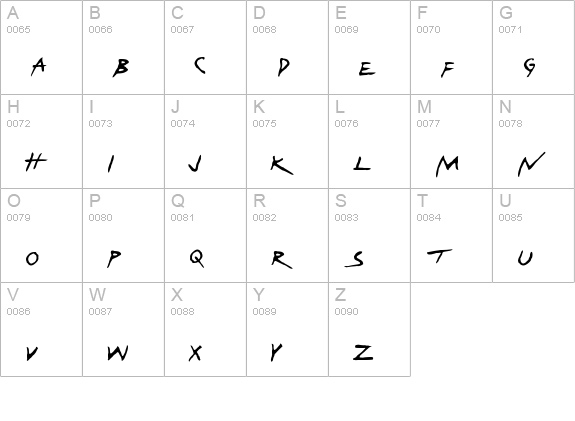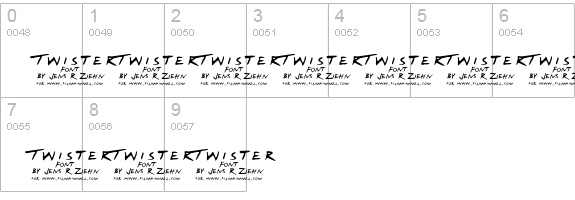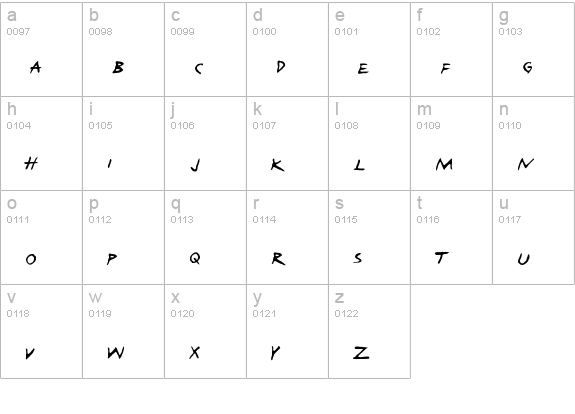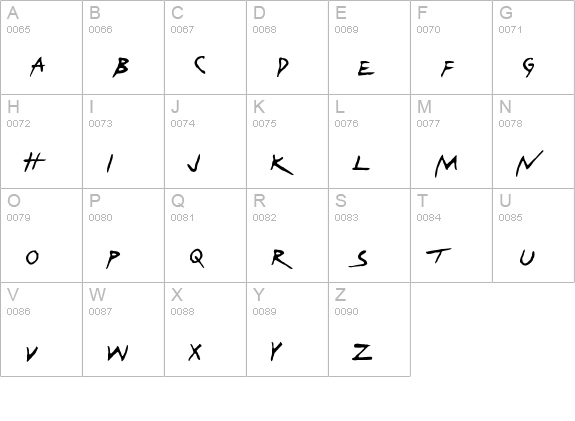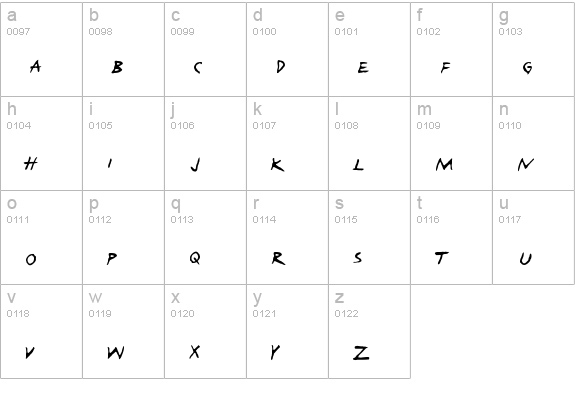
Twister Font Details
Introducing Twister font, a captivating typeface that will twist your design projects into a whole new level of creativity. With its unique and dynamic letterforms, Twister font adds a touch of excitement and energy to any design. This versatile typeface is perfect for a wide range of applications, from eye-catching logos and headlines to engaging posters and social media graphics. Its playful yet sophisticated style makes it suitable for both professional and personal projects, allowing you to stand out from the crowd with its distinct character. What makes Twister font even more appealing is that it is available for free! Yes, you read that right. You can freely download this remarkable font at FontsMarket.com, a trusted platform for high-quality fonts. With just a few clicks, you can elevate your design game without spending a penny. Whether you're a graphic designer, a content creator, or simply someone who loves experimenting with typography, Twister font is a must-have in your collection. Its bold and twisted shapes will add a dynamic and modern touch to your designs, making them truly unforgettable. So don't miss out on this fantastic opportunity to enhance your creative projects with Twister font. Head over to FontsMarket.com today and experience the power of this captivating and freely available typeface. Unleash your imagination and let Twister font take your designs to new heights.